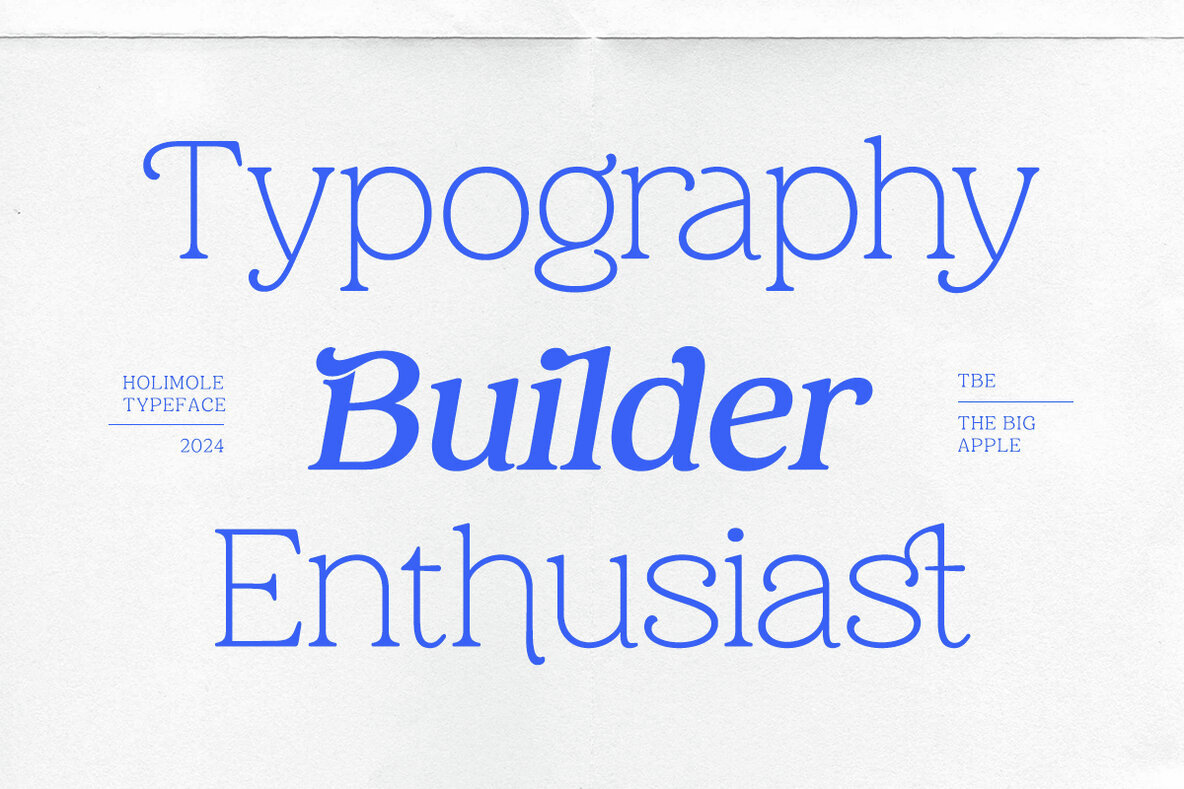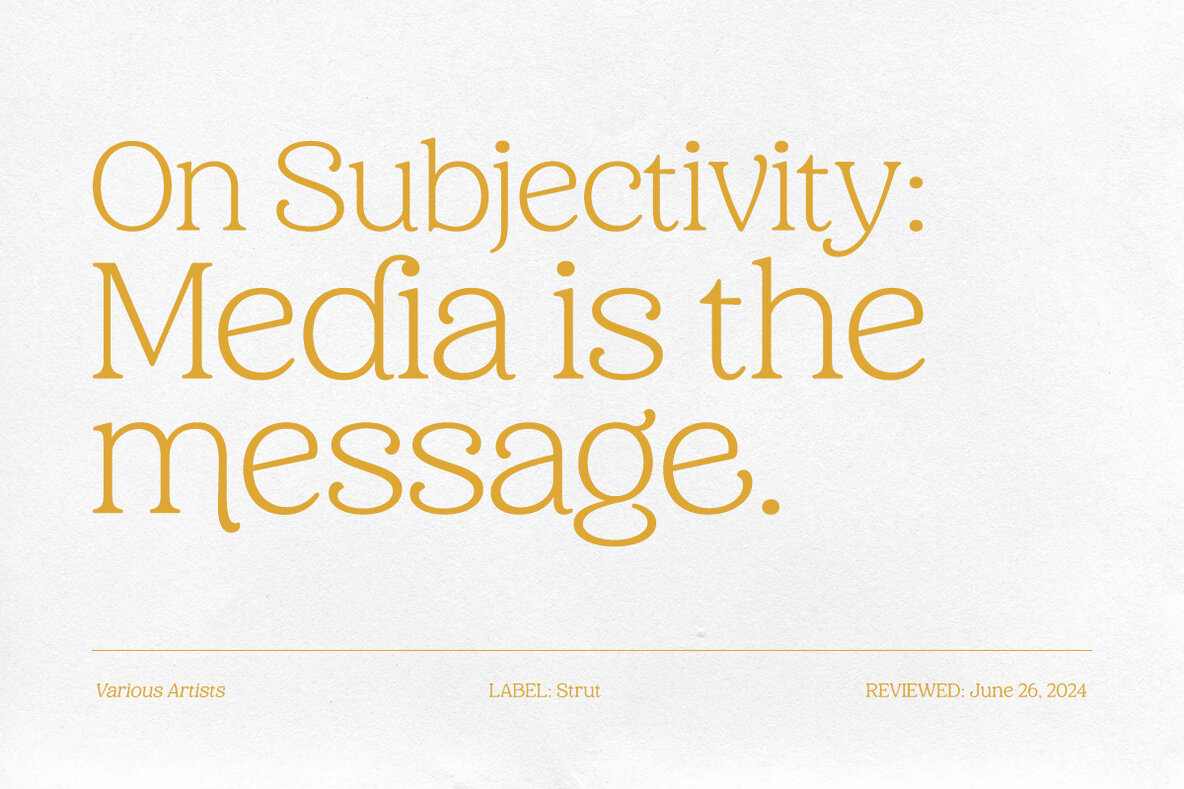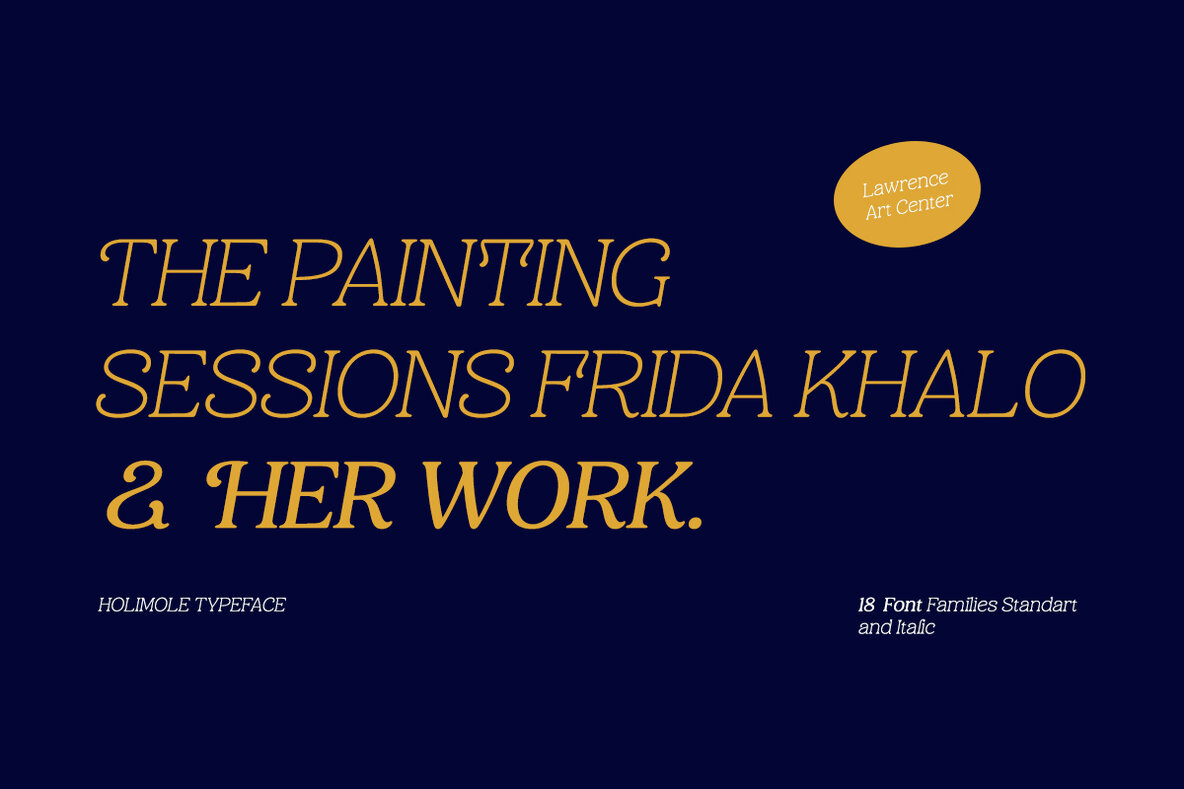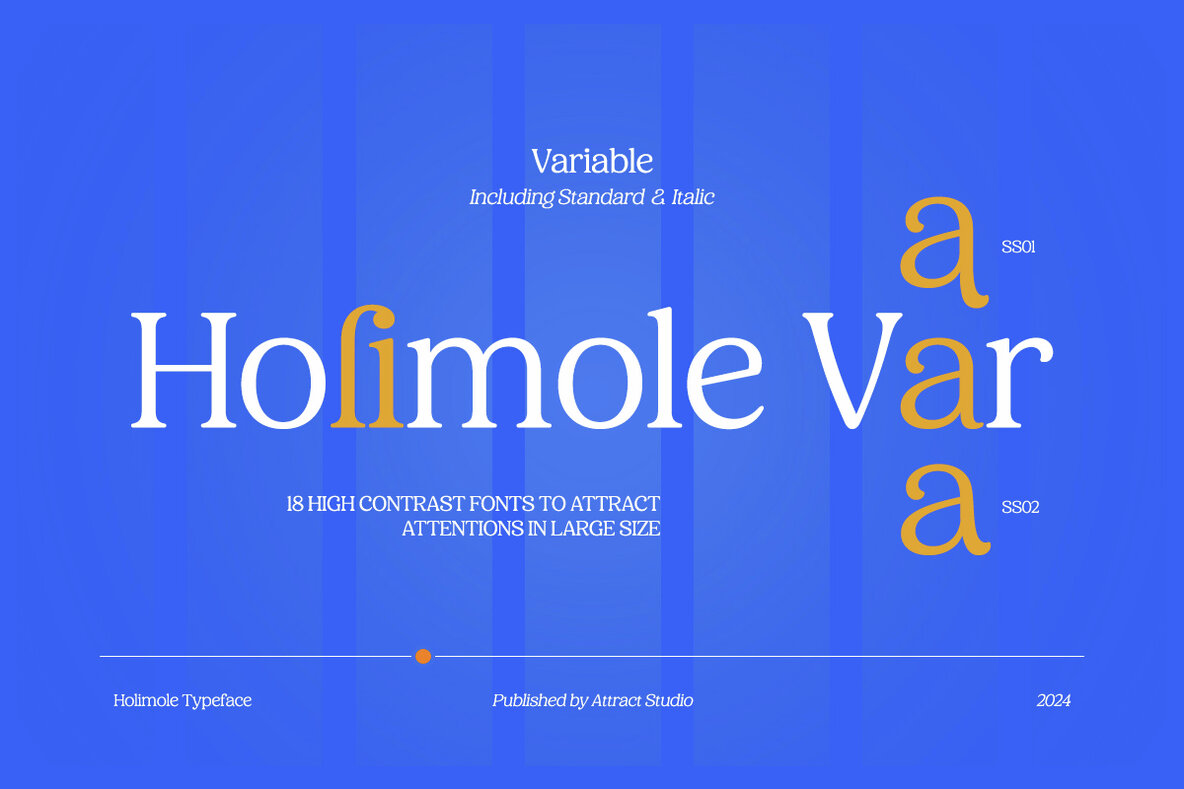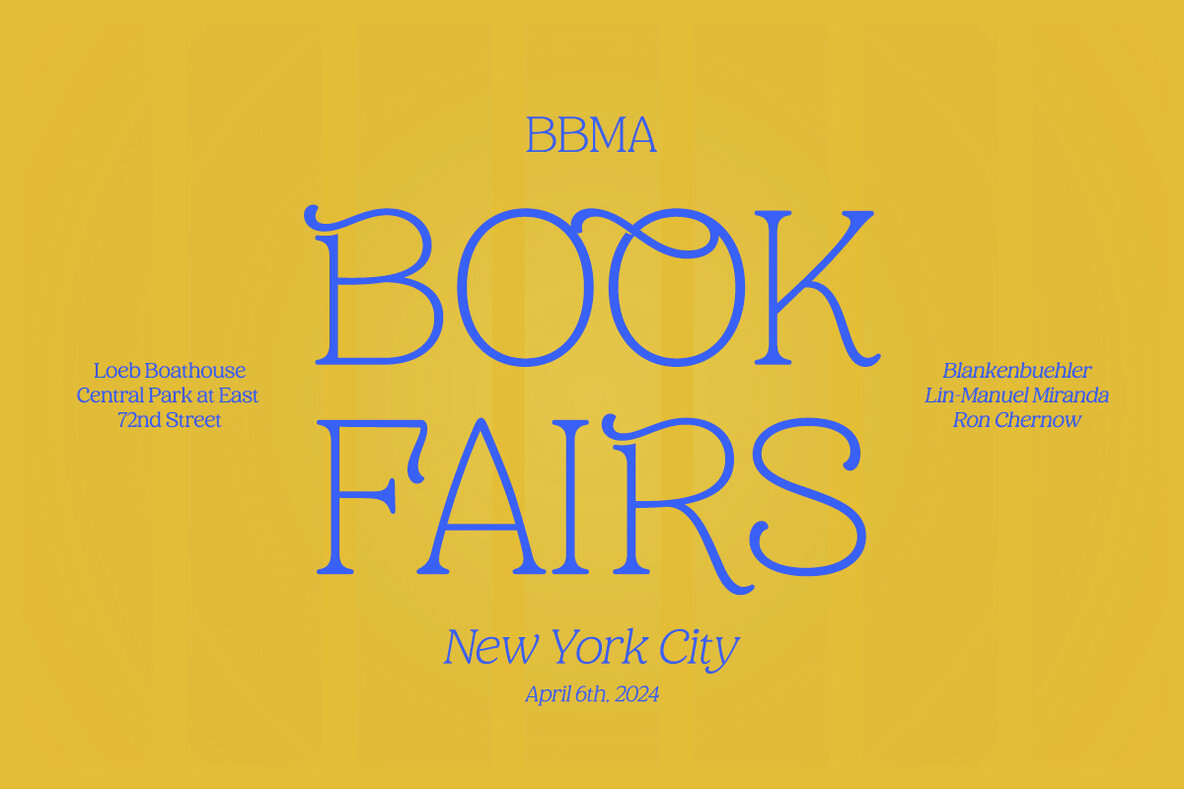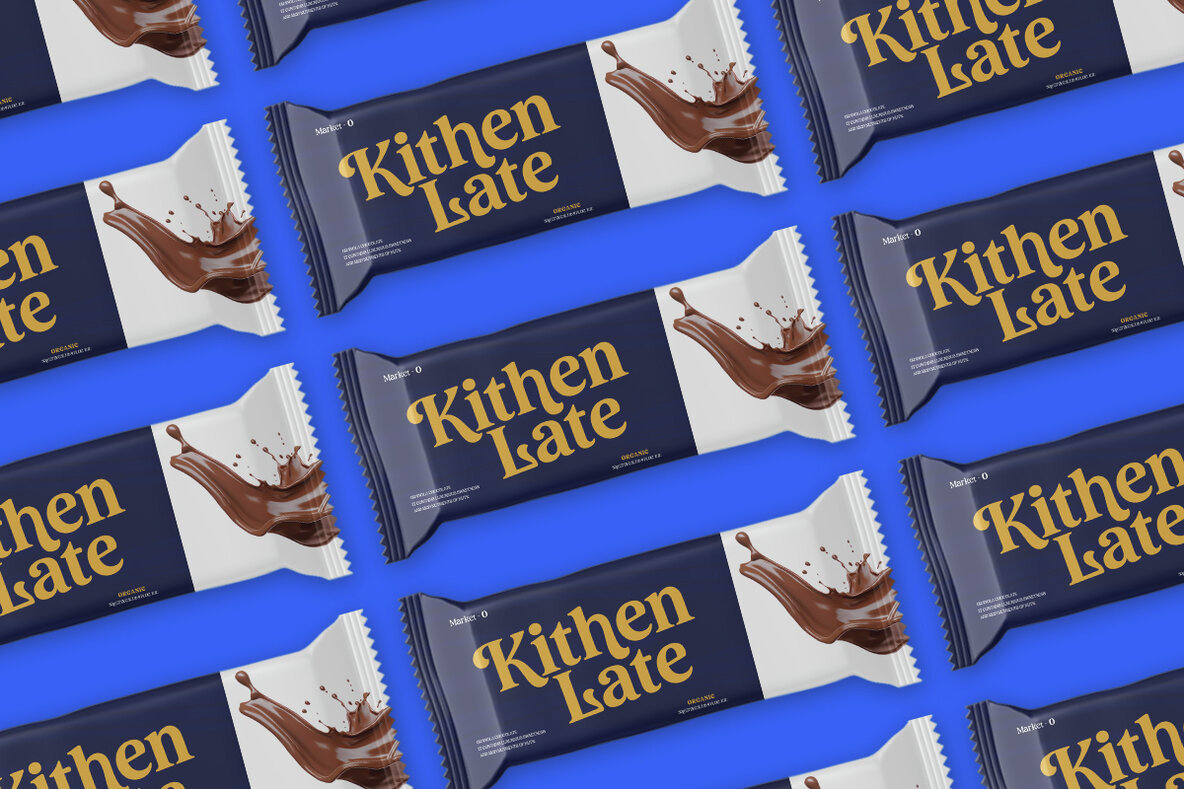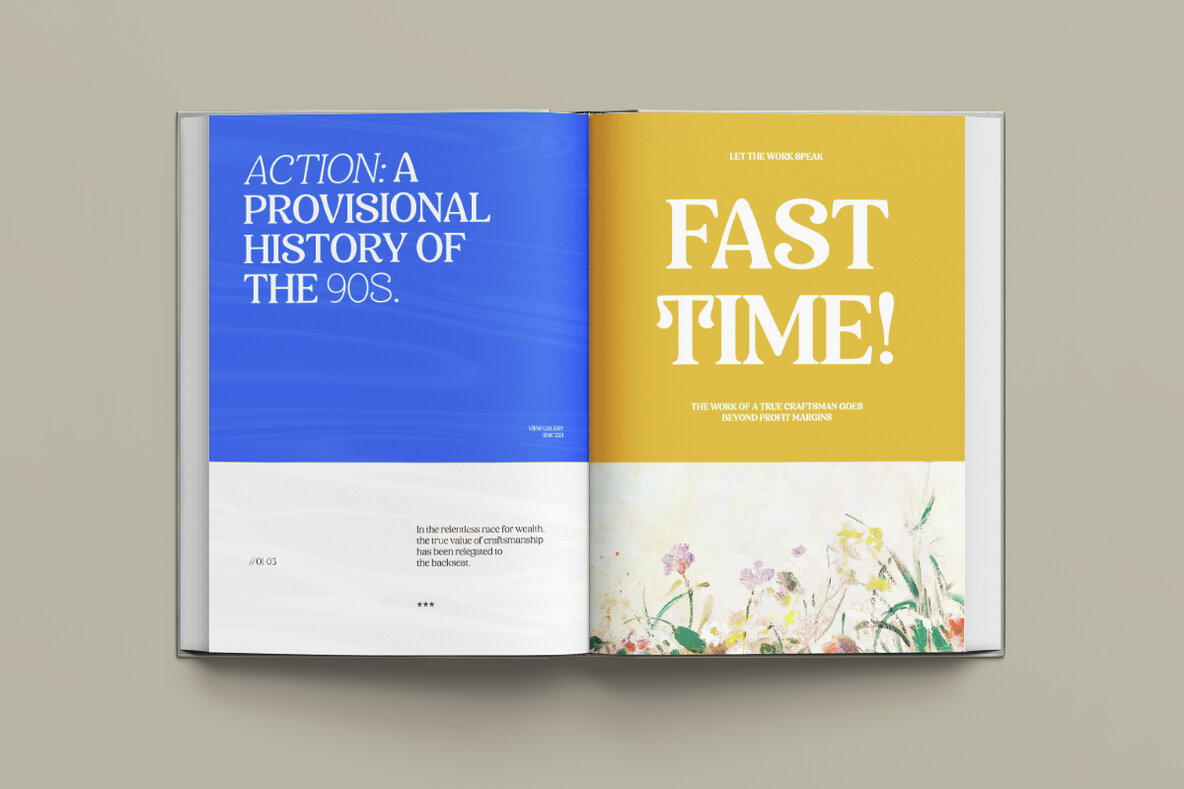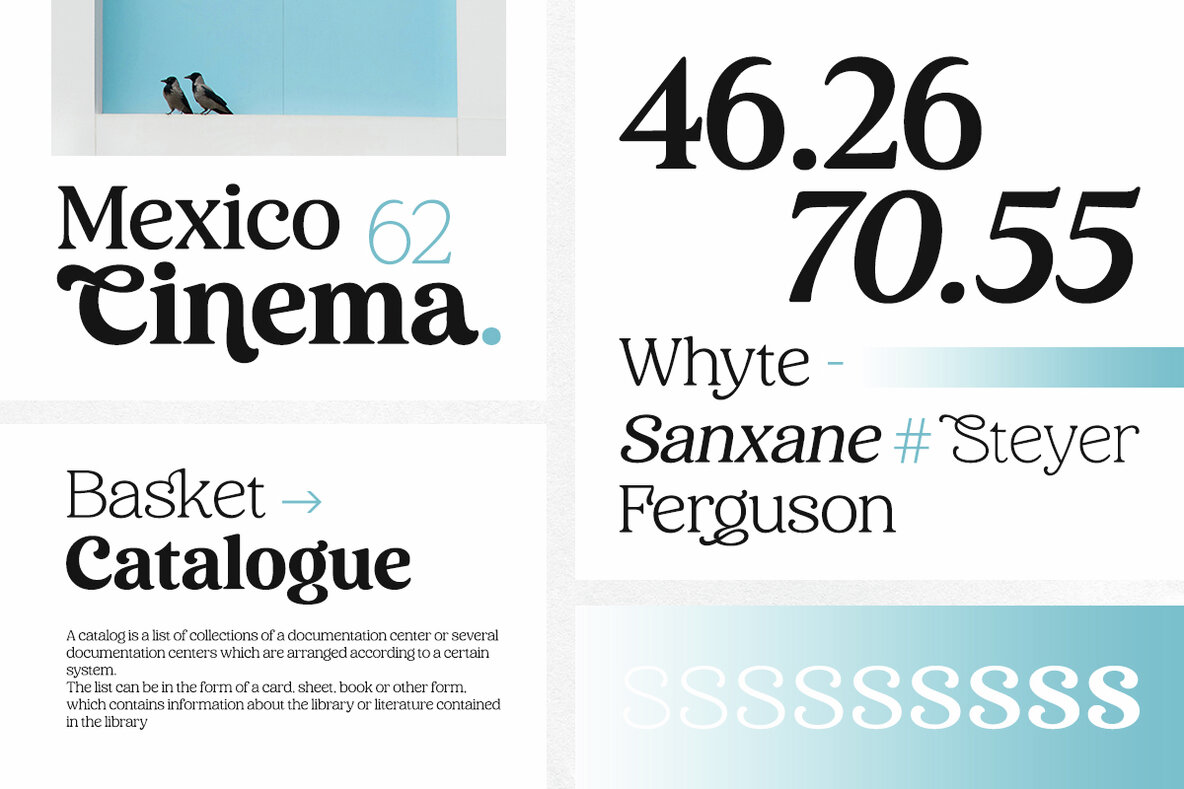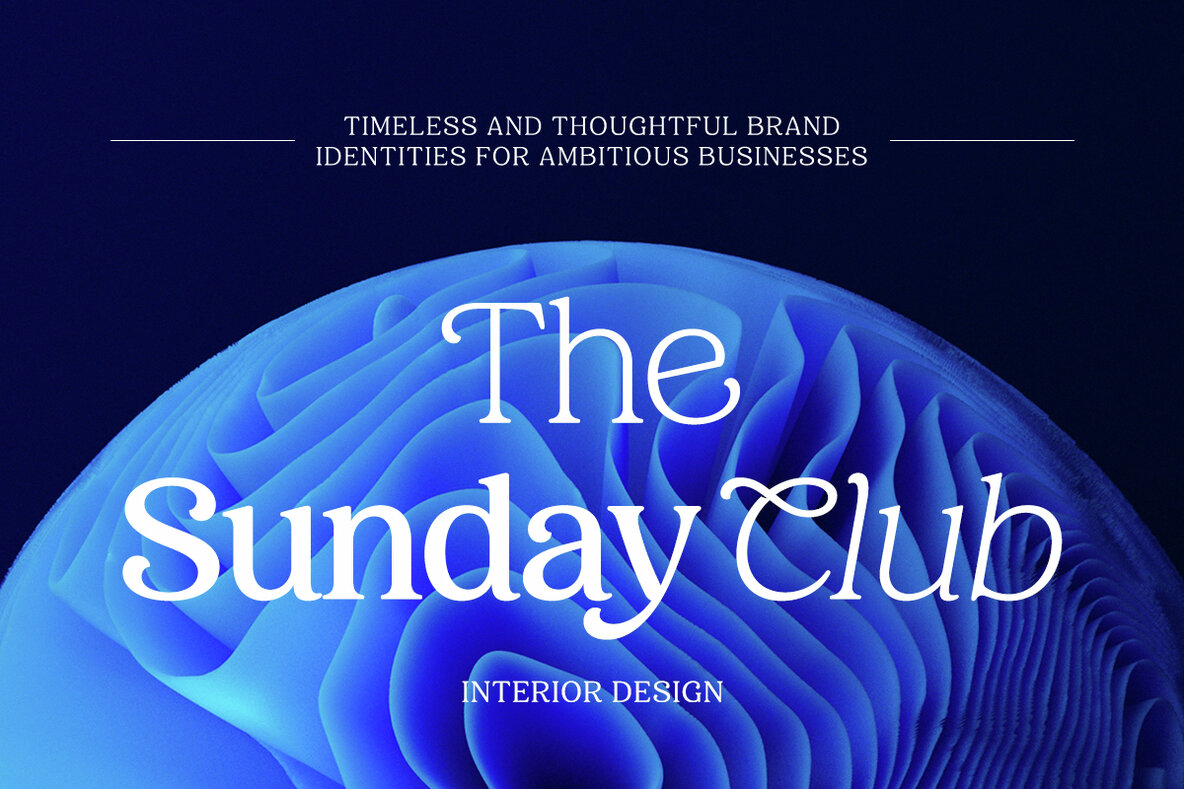
Holimole Font
Holimole merges ancient forms with modern design techniques, offering a versatile range from thin to black weights. Its natural curves, swells, and sloping stems provide character that evolves with increased weight, adding strength and utility to traditional serifs.
This font comes in standard and italic styles, featuring unique ligatures and alternatives that enhance each design's aesthetic appeal. Whether used for headlines or body text, Holimole's adaptability makes it a valuable asset for any designer's toolkit.